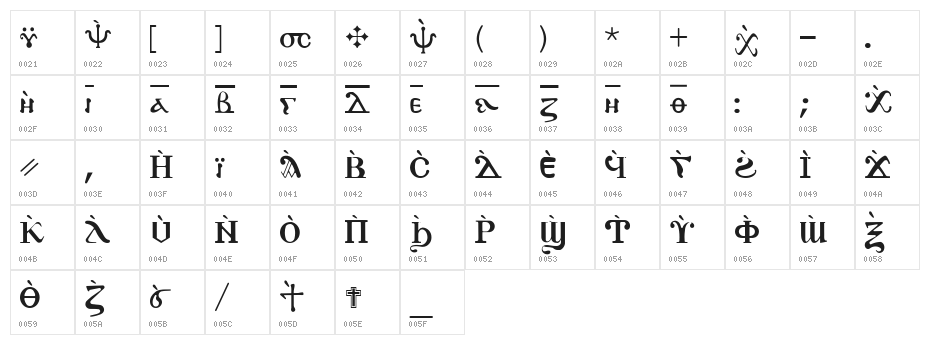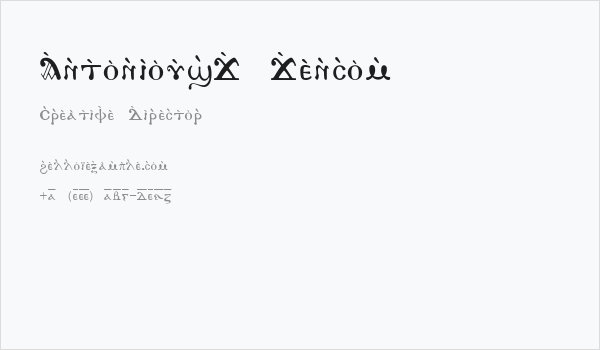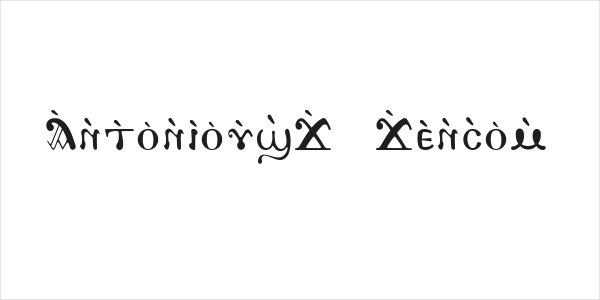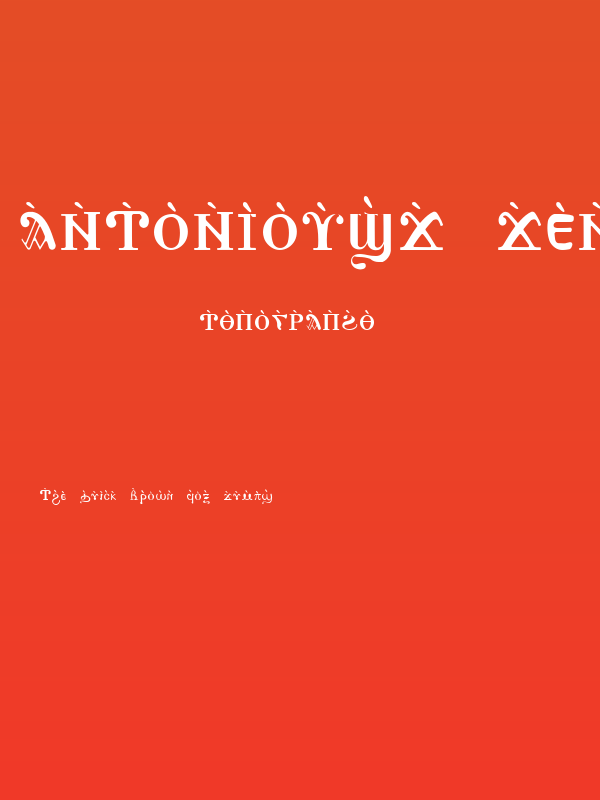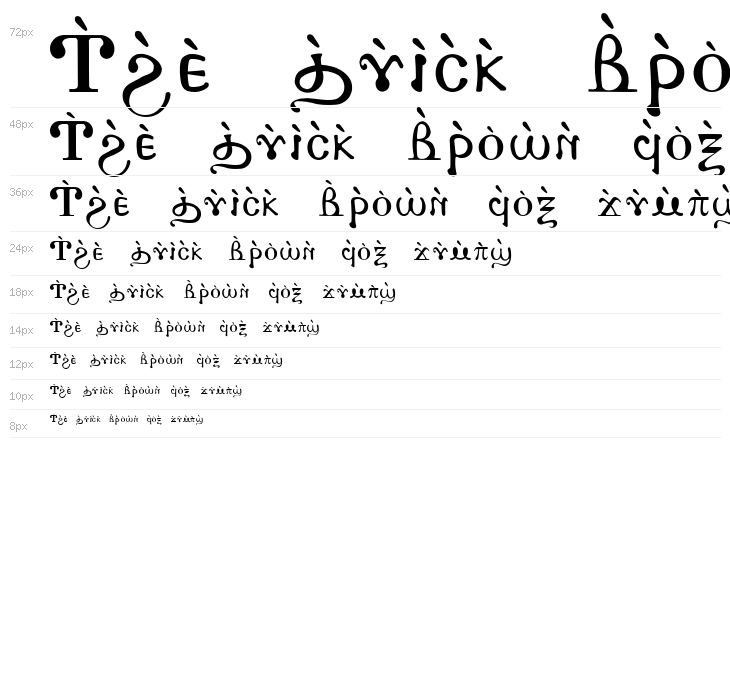
AntoniousJ Jencom Font
AntoniousJ Jencom Description
This font features a unique blend of geometric and ornamental elements, creating an intriguing visual appeal. The characters are adorned with small, decorative accents that give them a distinct personality. The uppercase letters are bold and commanding, while the lowercase letters maintain a consistent style with slightly softer curves. The numerals are clear and easy to read, matching the overall aesthetic of the font. Special characters are creatively designed, adding to the font's versatility. The font's style is reminiscent of ancient scripts, yet it maintains a modern edge, making it suitable for a variety of creative projects.